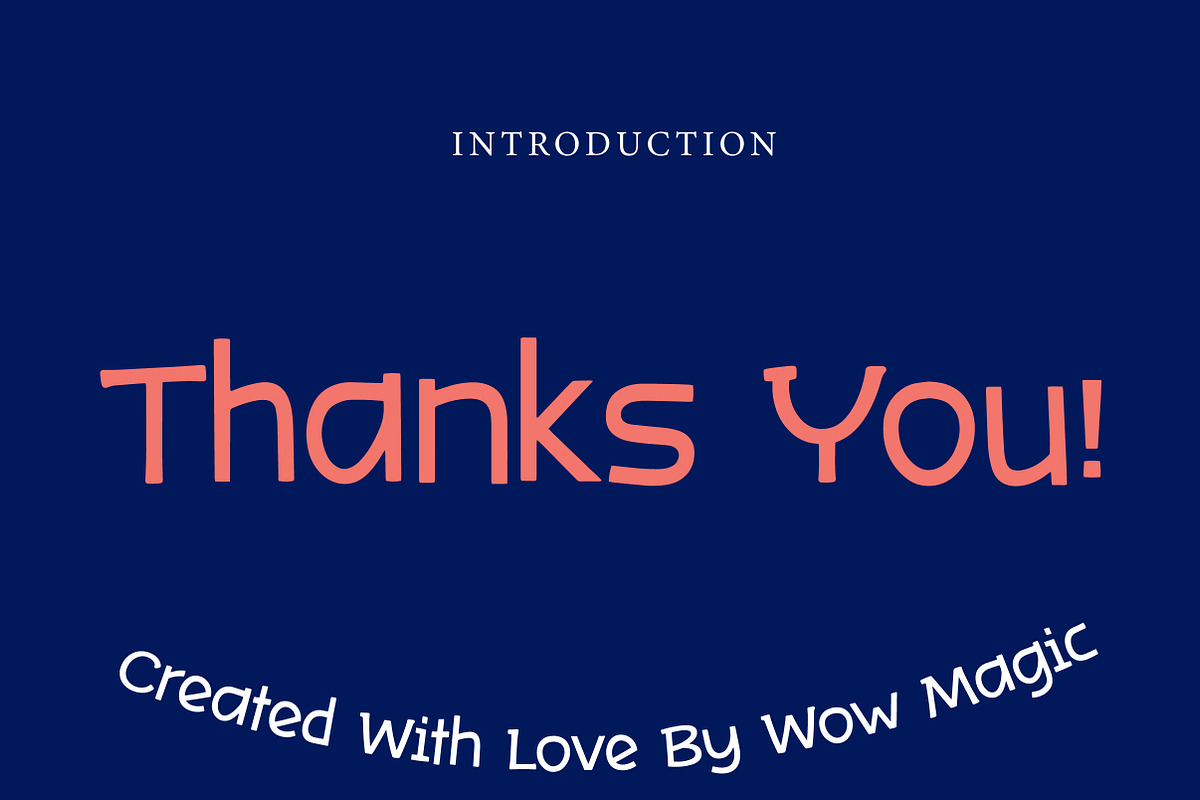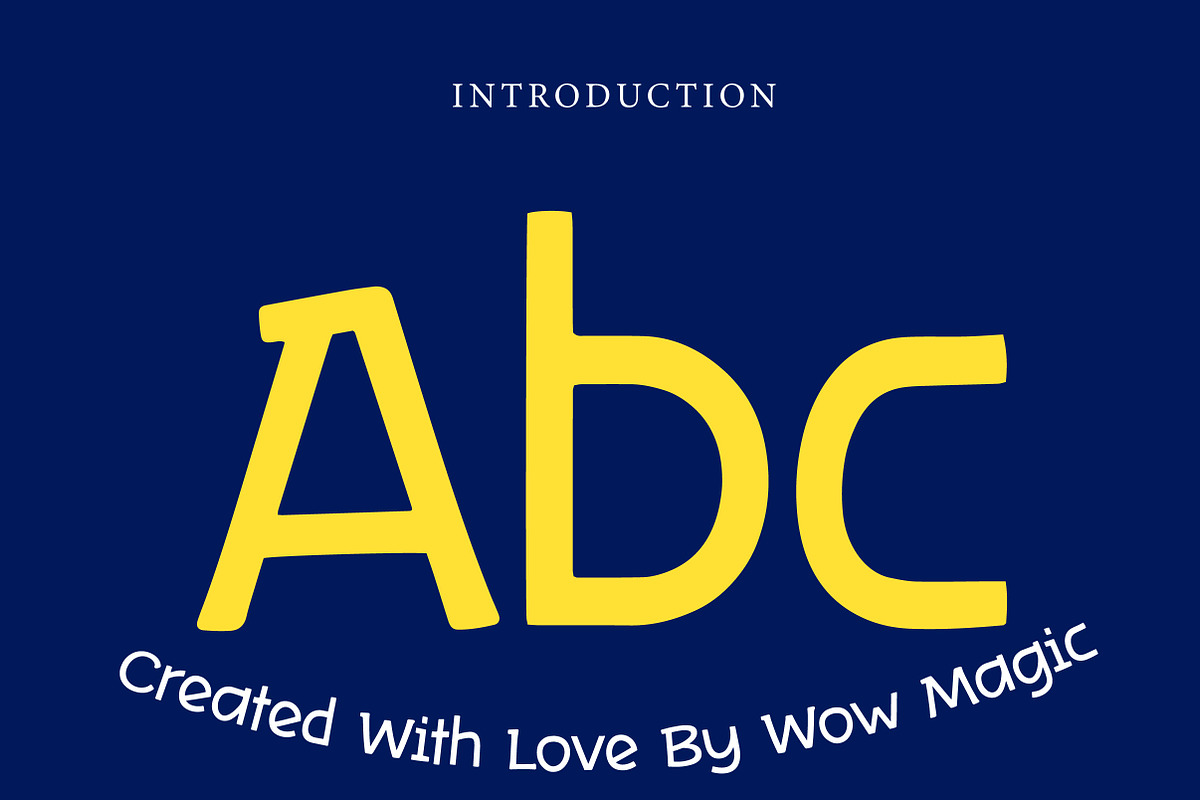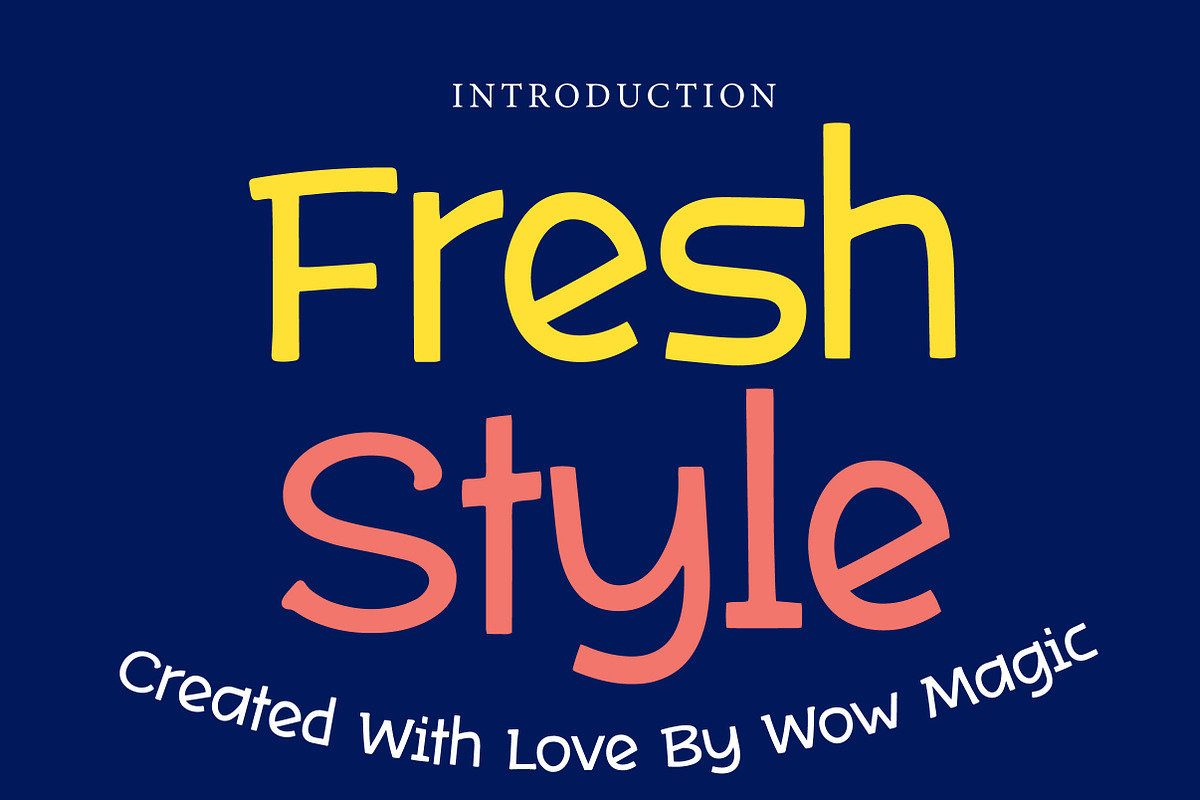
Fresh Style
Fresh Style – Casual Modern Handwritten Font
Short Description
Fresh Style is a clean, casual, and modern handwritten font, perfect for branding, social media, packaging, invitations, and fresh creative projects.
Full Description
Fresh Style is a simple and modern handwritten font designed to bring a clean, friendly, and natural feel to your designs. With its smooth strokes, rounded curves, and relaxed letterforms, this font creates a casual yet stylish look that feels fresh and easy to use.
Its balanced handwritten character makes Fresh Style a versatile choice for many creative projects. Whether you are designing branding materials, social media posts, product packaging, invitations, greeting cards, posters, or website headers, this font helps your typography look approachable, modern, and memorable.
The smooth and minimal structure keeps your text readable while adding a soft handcrafted touch. Suitable for both digital and print use, Fresh Style is ideal for designers who want a font that feels modern, clean, and effortlessly creative.
Perfect For Branding and logos Social media graphics Product packaging Invitations and greeting cards Website headers Quotes and typography Posters and flyers Lifestyle branding Stickers and labels Modern creative projects Font Features Uppercase letters Lowercase letters Numbers & punctuation Casual handwritten style Smooth and rounded shapes Clean and modern look Perfect for display use